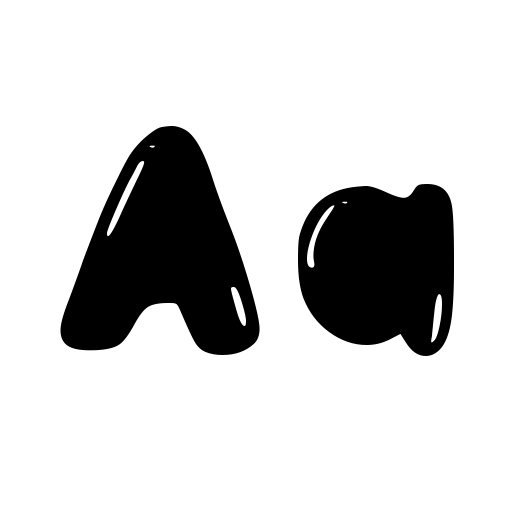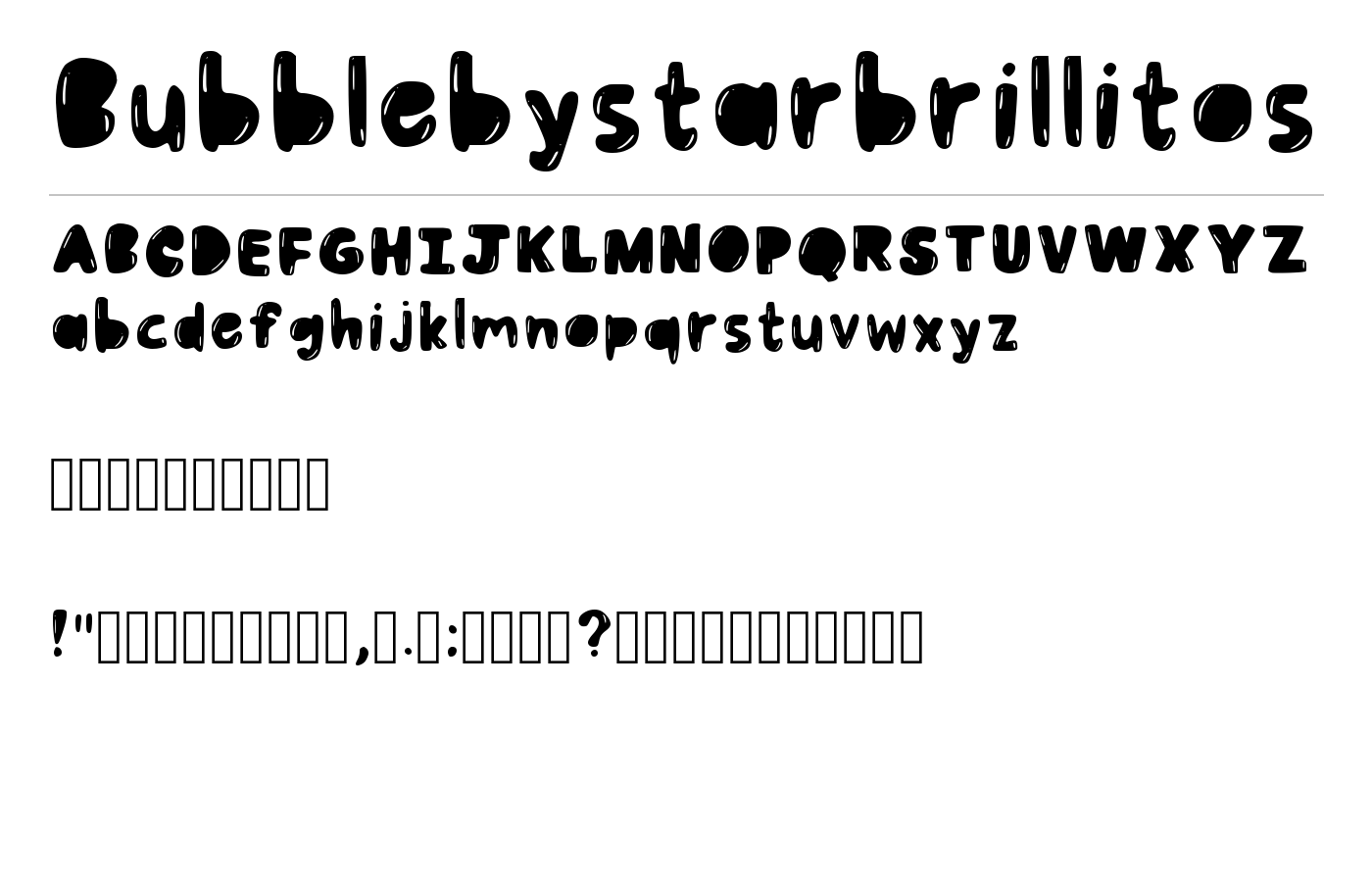
Bubblebystarbrillitos is a playful, bold sans serif font with a bubbly, hand-drawn feel that adds a sense of fun and charm. Its rounded, thick letterforms and high x-height create a friendly and approachable look, making it perfect for children's designs, casual branding, or creative projects seeking a whimsical touch. This font works best in headlines, logos, and playful packaging where a joyful and informal vibe is desired.
Bubblebystarbrillitos Font
About Bubblebystarbrillitos Font